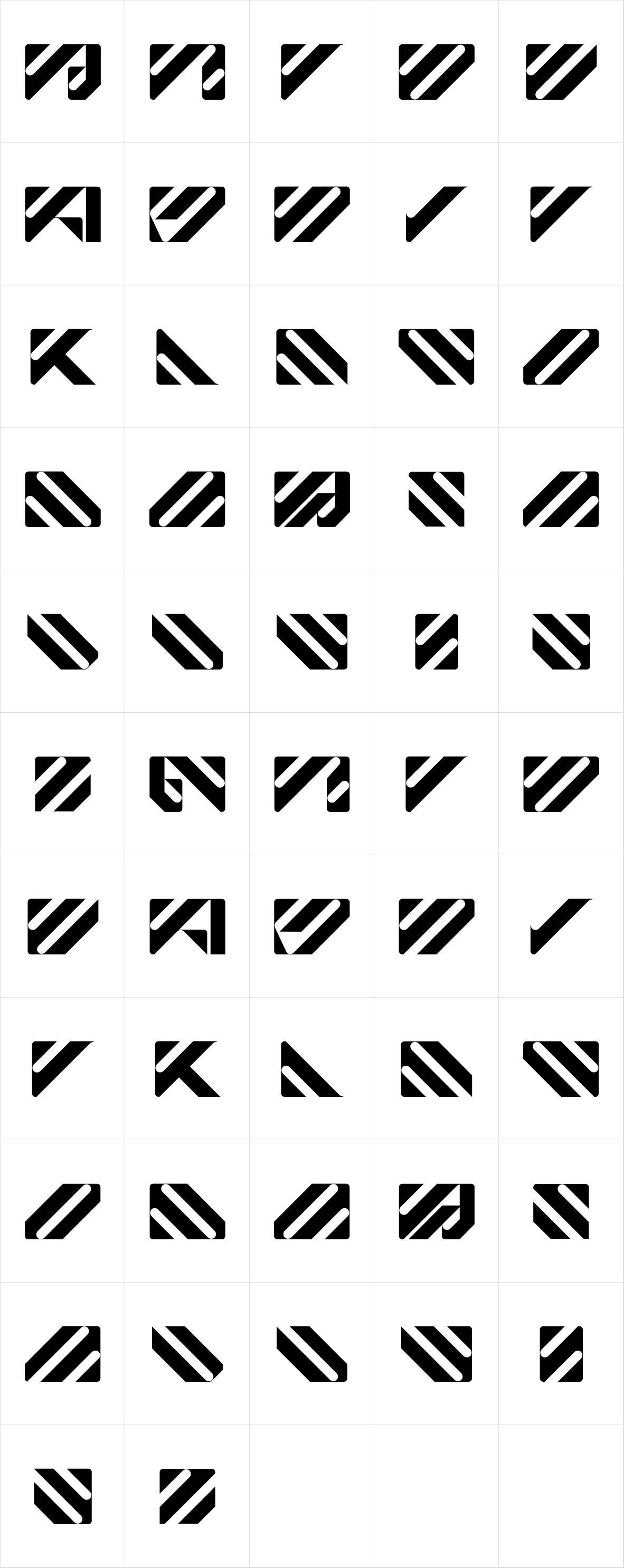
SWEM Font
- Suprb Type Collection
- This collection of fonts covers many areas of type design; clean sans-serif designs, fashionable thin weights, heavy slabs and abstract pattern making fonts. Designed by the prestigious and creative design studio Suprb. Includes: Capset, Myld, Wyld, ASCA-D, ASCA, CLOUD.DOT.TWO, Quick 16, Quart, Swem.